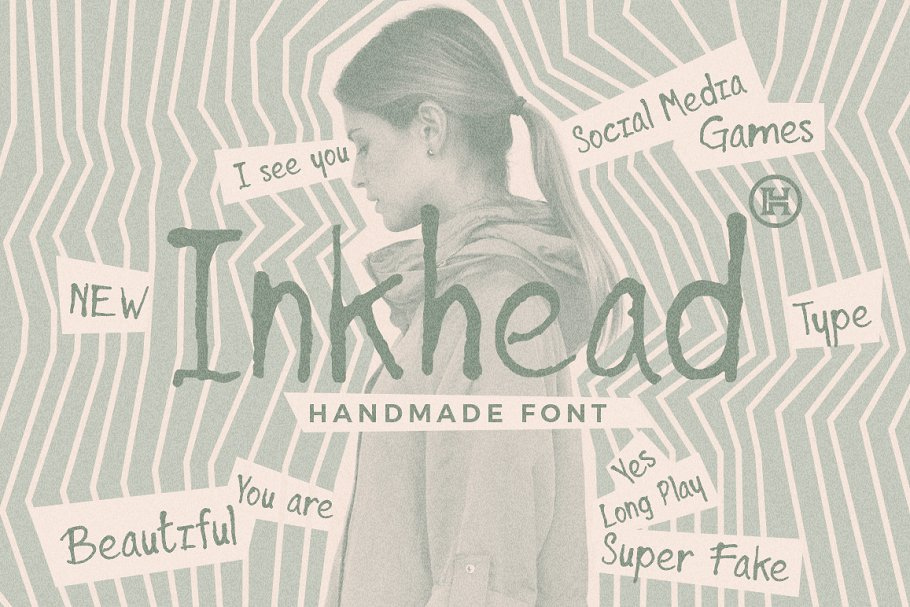
Inkhead Font
This artistic typeface is perfect for tattoo studios, ink brands, artistic portfolios, graffiti designs, creative agencies, art galleries, street art projects, comic books, and expressive design applications.
What makes this font exciting is its ink-splattered creativity combined with artistic authenticity, offering designers an expressive typeface that captures the raw energy of artistic expression while delivering tattoo-inspired edge and creative visual sophistication.
The Inkhead font family includes regular, bold, splatter, drip, and artistic variations, providing complete creative design solutions for creating authentic artistic visual identities.
Whether you're developing artistic studio brands or crafting creative expression experiences, Inkhead Font Free Download brings exceptional artistic atmosphere and ink authenticity to every application. This expressive typeface combines street art typography with contemporary creative design, creating letterforms that inspire artistic freedom and celebrate individual expression. The font's artistic construction and creativity-ready details make it perfect for brands seeking immediate artistic recognition.
Inkhead Font features carefully crafted artistic styling with authentic ink character that conveys genuine creative expertise. Each character has been designed with organic ink flow and expressive elements that enhance the artistic aesthetic. The font's creative qualities make it particularly effective for tattoo studios and artistic applications.
Professional designers choose Inkhead Font for projects requiring authentic artistic credibility and creative atmosphere. Its expressive heritage makes it exceptionally well-suited for tattoo parlors, art studios, and creative lifestyle brands. The font's versatile artistic variations allow designers to control the creative intensity, from subtle artistic elegance to full ink expression.
The complete Inkhead Font package offers extensive artistic ornaments and ink decorative elements that enhance the creative aesthetic. Advanced splatter features allow designers to create complex artistic effects with multiple expression-inspired options. This comprehensive creative toolkit ensures designers have everything needed to create authentic artistic communications that celebrate the boundless power of creative expression and ink-stained artistic passion.